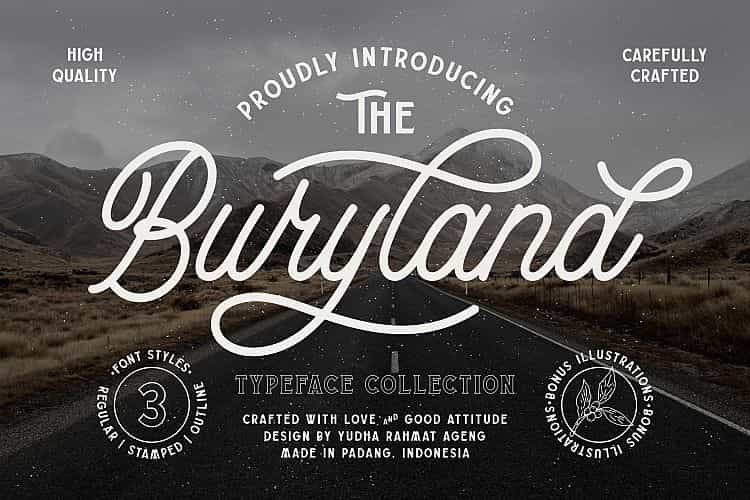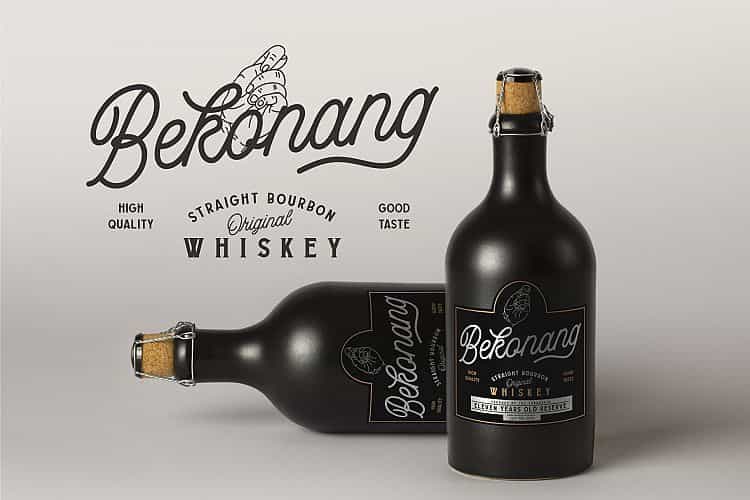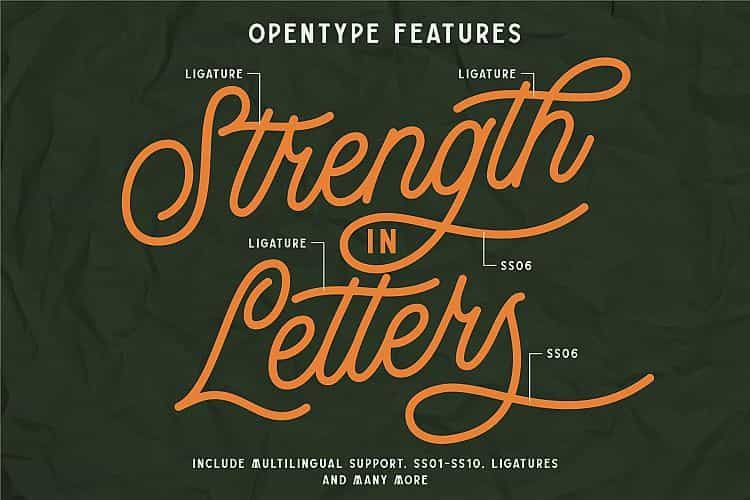
Discover Buryland Script Font, part of the Calligraphy Retro Monoline collection—a versatile and unique font perfect for adding a personal touch to your projects. Download it for free and enjoy crafting designs with style, from invitations to social media posts. This font is available exclusively for personal use, giving you the freedom to create without limits. Unlock your creativity with Buryland Script Font today!
Introducing Buryland Font. This monoline typeface will make you reminisce of the good old days as its design has that timeless feel! Designed thoughtfully to provide optimum fit for all of your projects. It’s Styled Script, Sans, Serif write in Handmade style with the touch of Retro and Modern hand lettering, so it can be used in any style for designing. For each font, It’s has three styles Regular font, Stamped font and Outline font. Buryland thus has standard Multilingual Support.